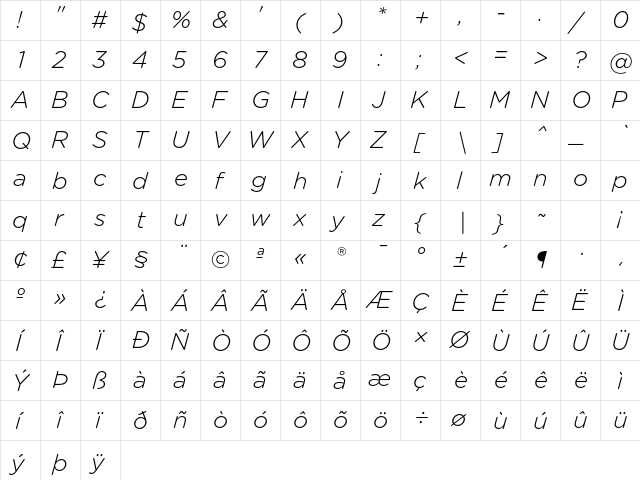
Gotham Rounded Light Italic Font Preview
| Foundry | Hoefler & Frere-Jones |
| Designer | Hoefler & Frere-Jones |
Design Context for Gotham Rounded Typeface
Gotham Rounded softens its letterforms with rounded terminals, giving it an approachable, friendly quality that works well in consumer-facing and digital contexts. Its italic angle brings a sense of urgency and motion to the letterforms. The delicate stroke weight brings airiness and refinement to layouts.
Well-suited to UI design, mobile interfaces, and any brand that wants approachability without sacrificing clarity.
Font Pairing: Pairs well with a rounded or humanist sans for body copy, maintaining the friendly tone without relying on Gotham Rounded to carry extended reading.
Pro Tip: Use Gotham Rounded for UI elements, app interfaces, and anywhere a friendly, approachable tone needs to be maintained without sacrificing clarity.